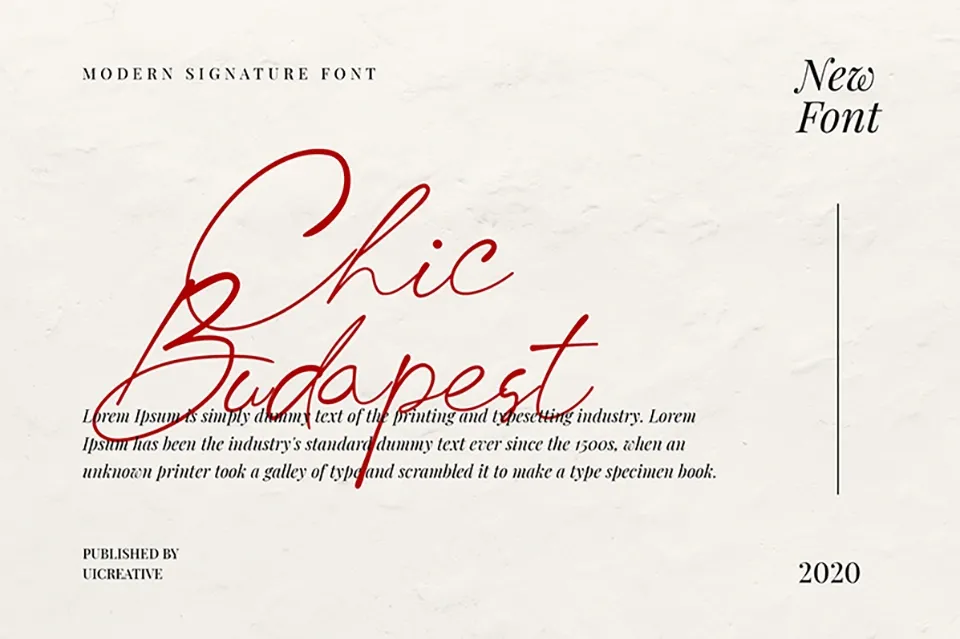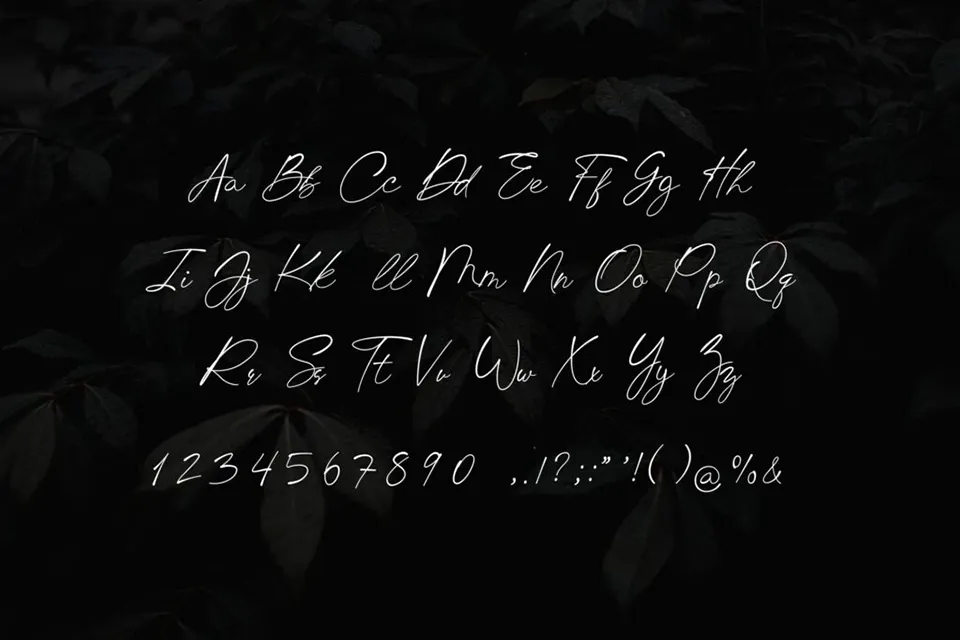
Chic Budapest Font
Chick Budapest Signature Font is a fancy casual handwritten script font. Comes with a combination of modern and elegant fonts, namely serif and signature style. This font is included in modern script types so perfect for imaging your personal brand and every great project, such as logos, labels, packaging designs, blog titles, posters, wedding designs, social media posts, Instagram designs, card invitations, art quotes, home decor, book/cover titles, etc.